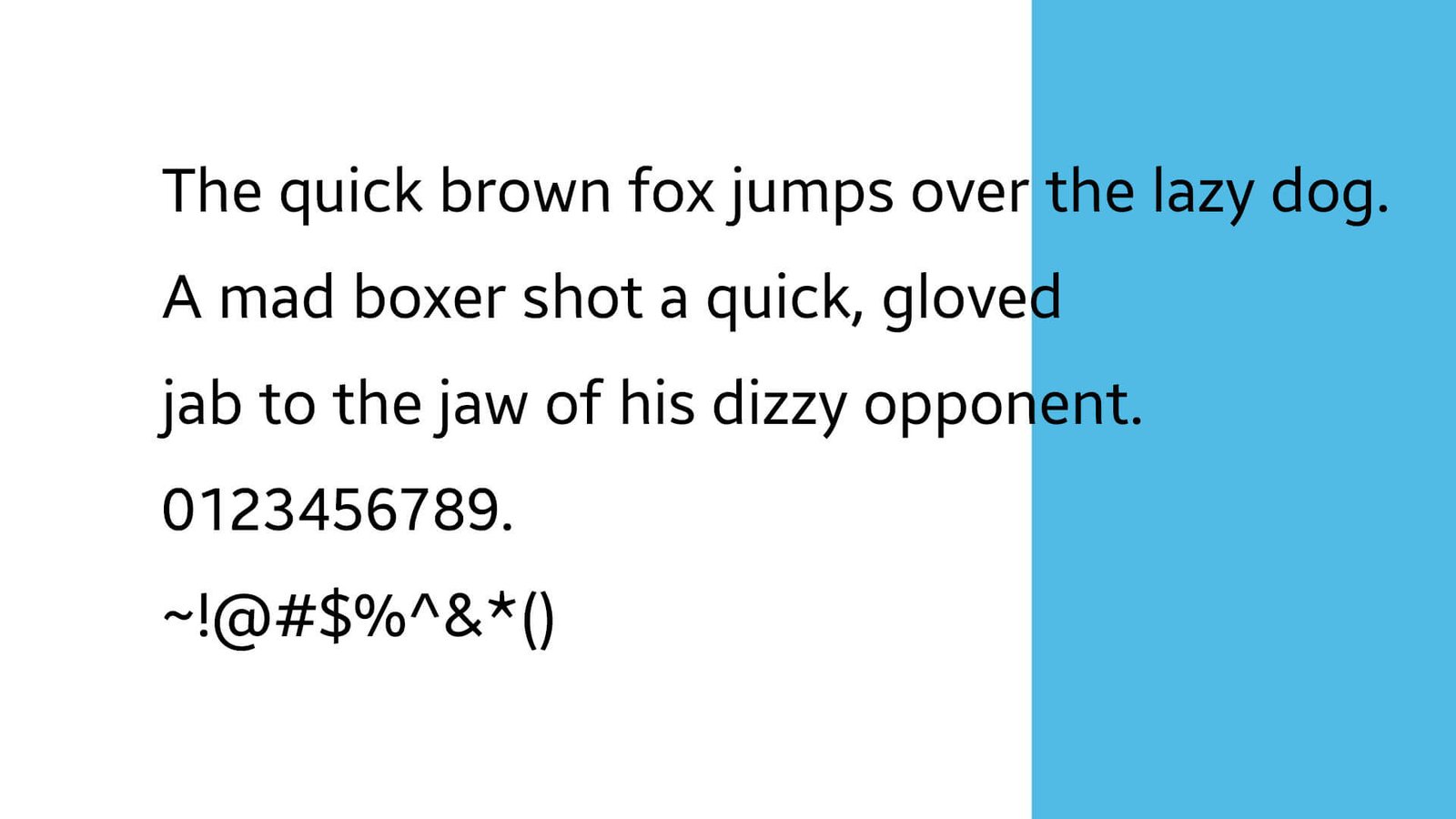
The Samsung Sans font was created by Dalton Maag Ltd. It was first launched with the Galaxy mobile phone lineup. This font features a clean and modern sans serif design.
Due to its association with the 2nd best mobile phone selling company, it becomes more popular. Most Samsung users utilize this classic font on different devices. This font is user-friendly font because readers can easily read and understand the content written with this font.